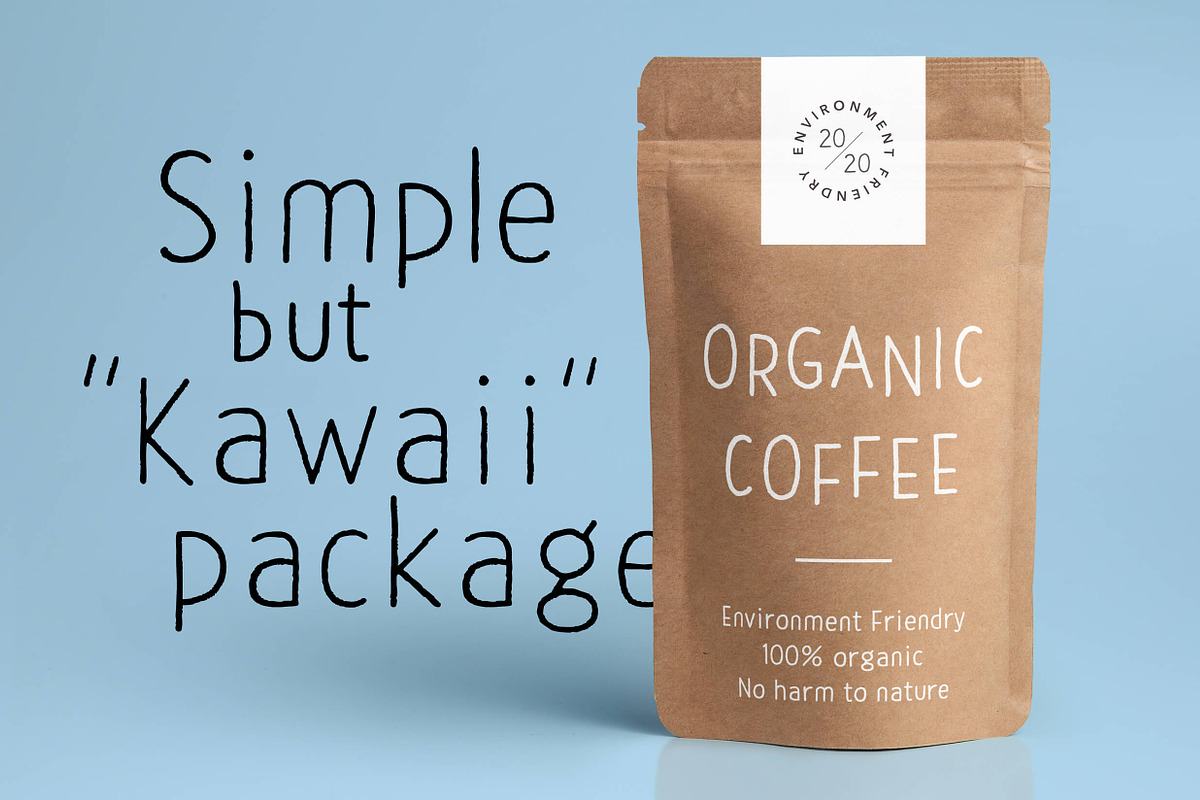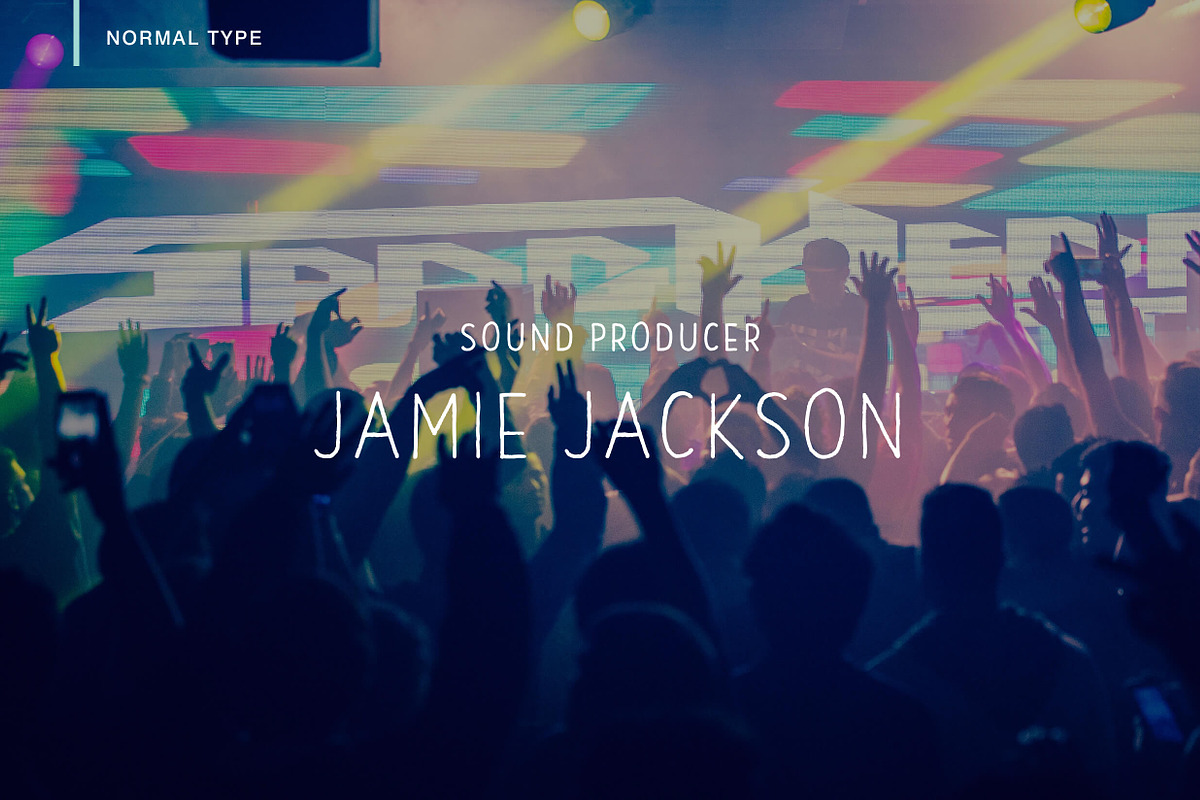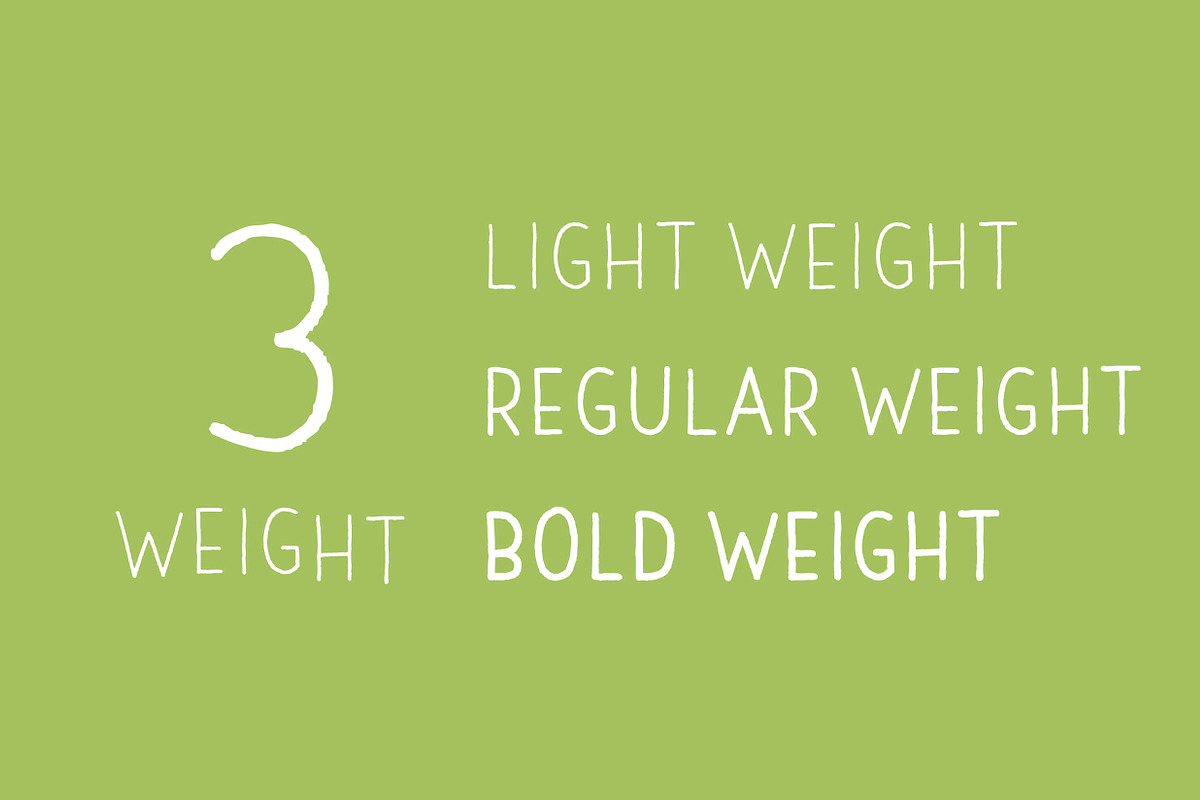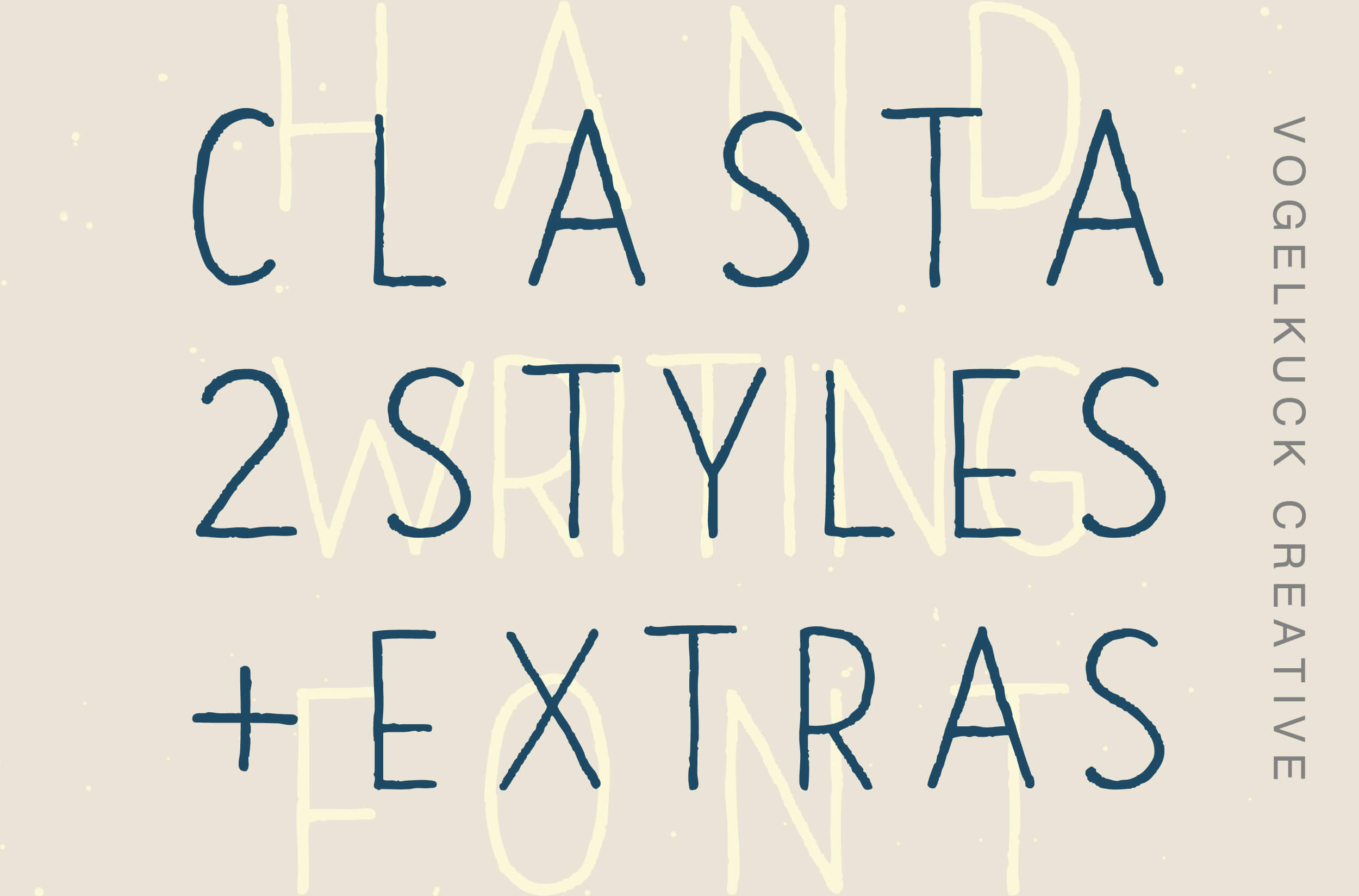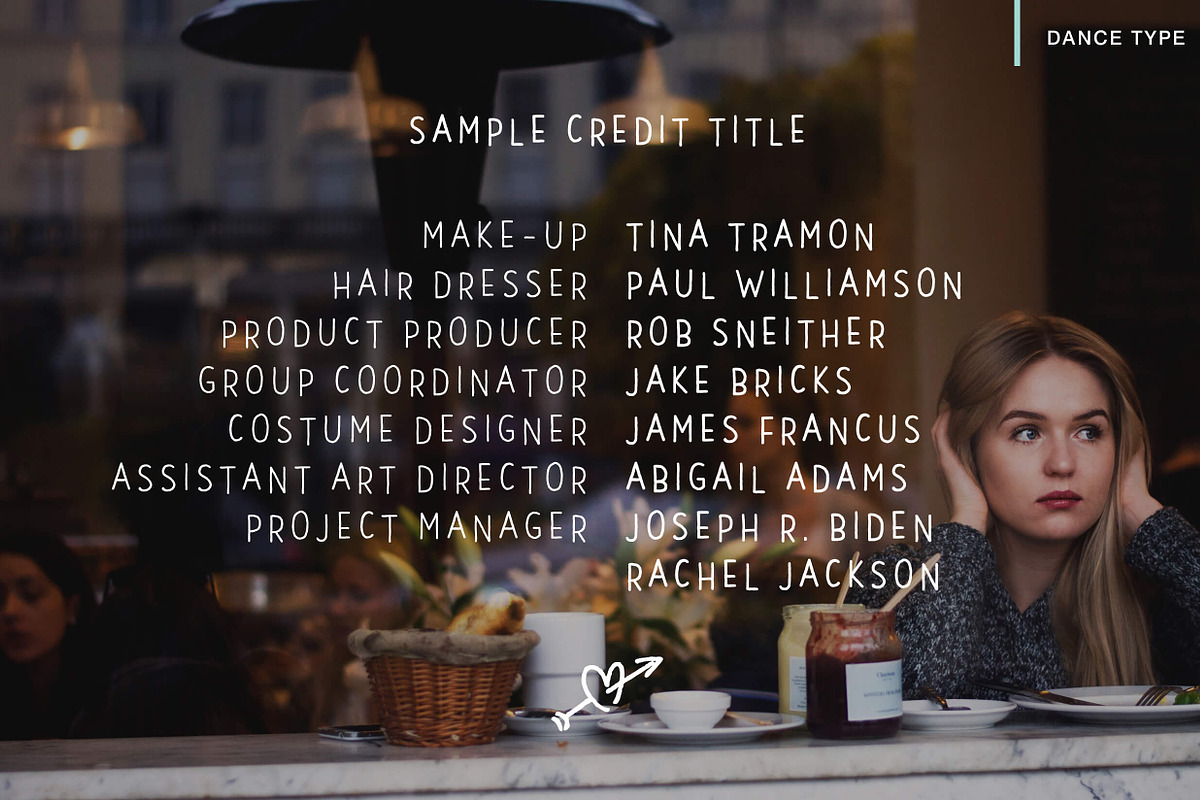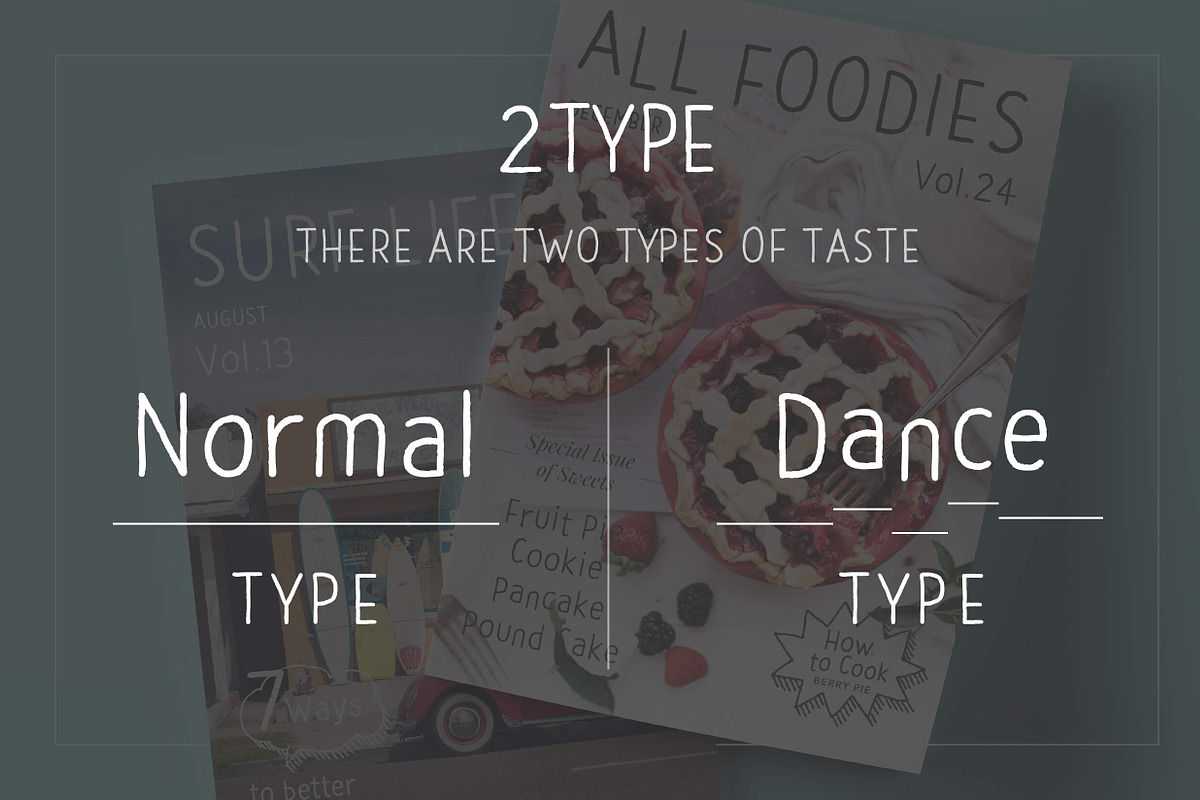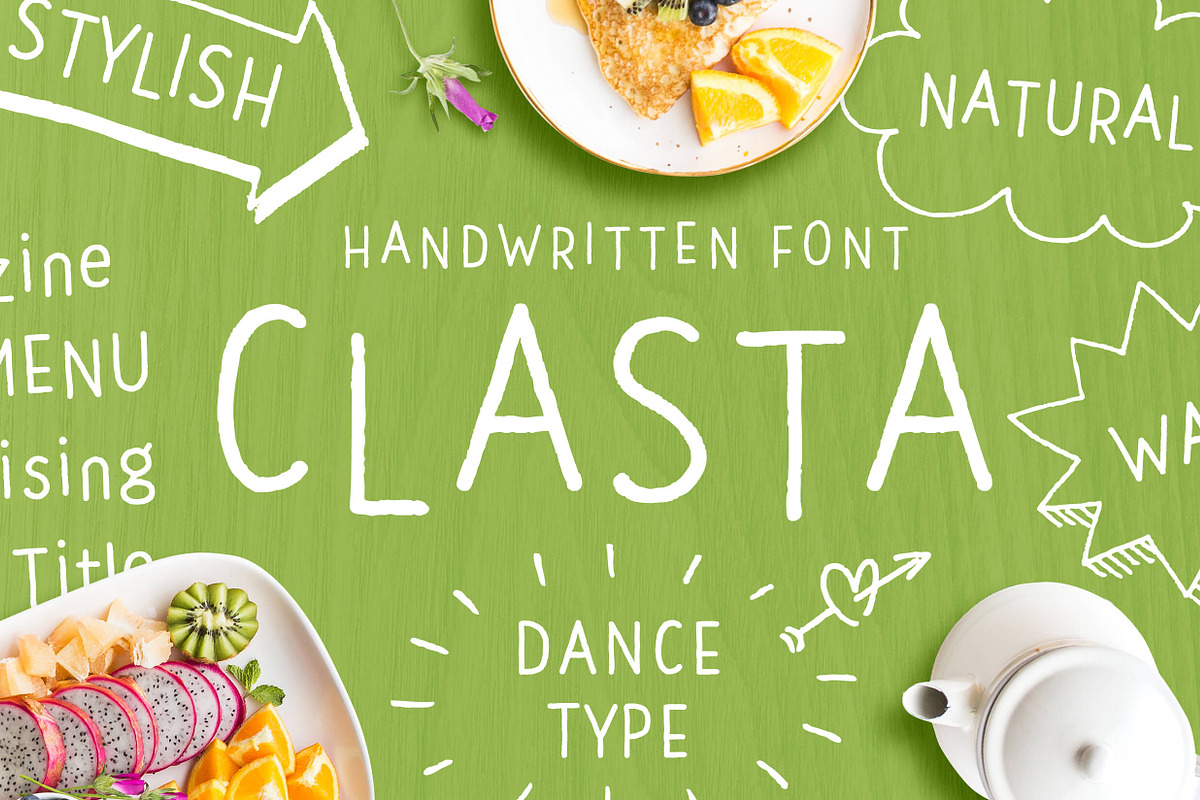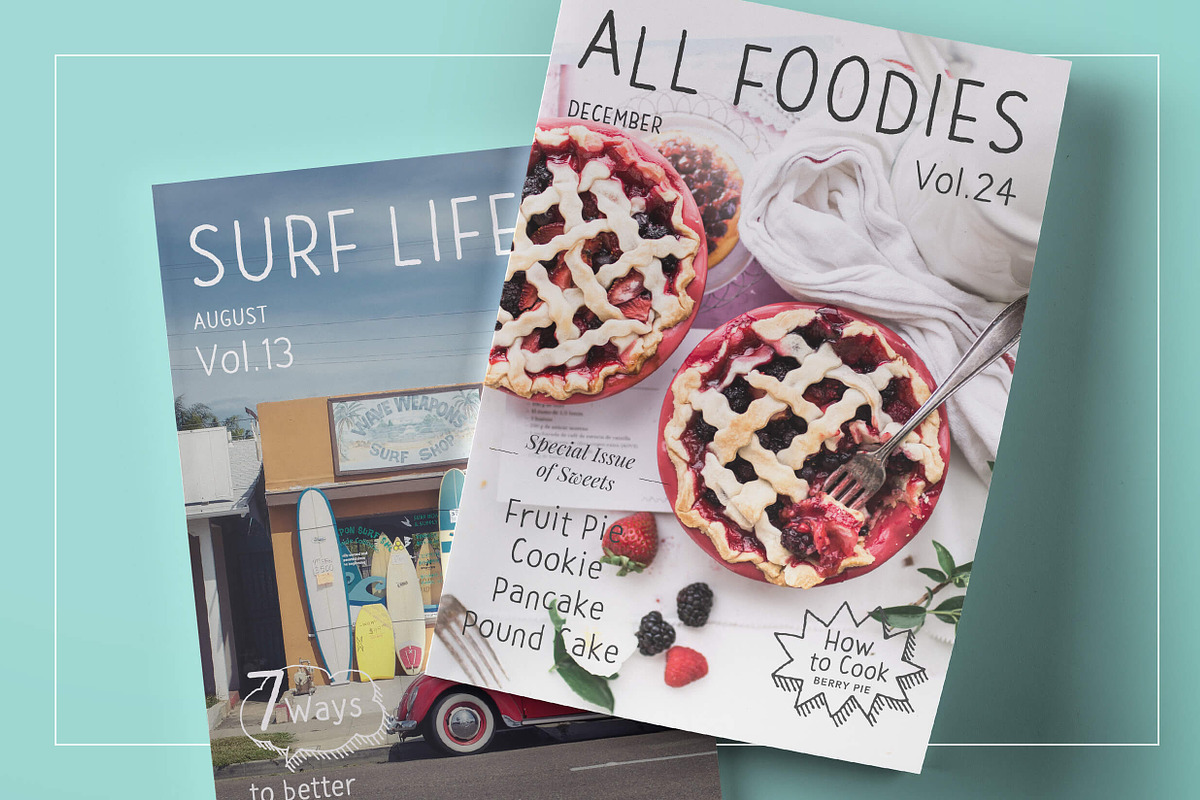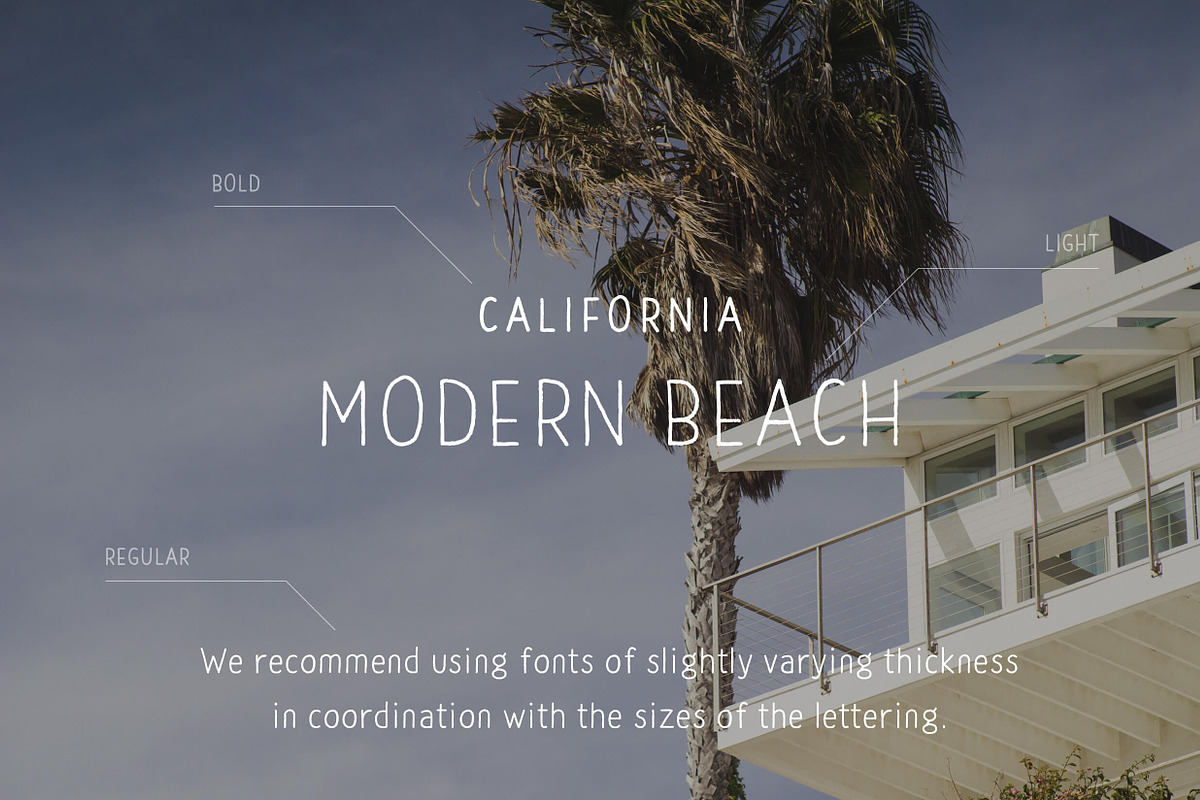
CLASTA Font & Extras
Urban and casual, as well as stylish. CLASTA is the perfect commercial font for such scenes and environments. With any overt peculiarities reined in and based on an original sans serif, this hand drawn and roughly styled font is unique yet has a secure readability. From magazines, advertisements, TV, greeting cards, to packaging, the potential uses of this font are unlimited.
In addition to normal type, CLASTA is also available in a dance type, whereby the tops and bottoms of the lettering are deliberately unbalanced. If you want a rougher form of expression, this dance type may better match your concept.
EXTRAS : As a bonus, the CLASTA font package also comes with 52 types of extra typefaces to match whatever font design you may desire ! These extra materials will surely help make your designs more fun and well balanced. ※The extras are included in the A-Z capital and lower case letters.